Good Adobe "bitmap" font for printing @ 12pt on a dark/black background ?
I'm looking for a "bitmap" style font to represent text on a screen, and tried LoRes 12 OT. The text will be several colors, including red.
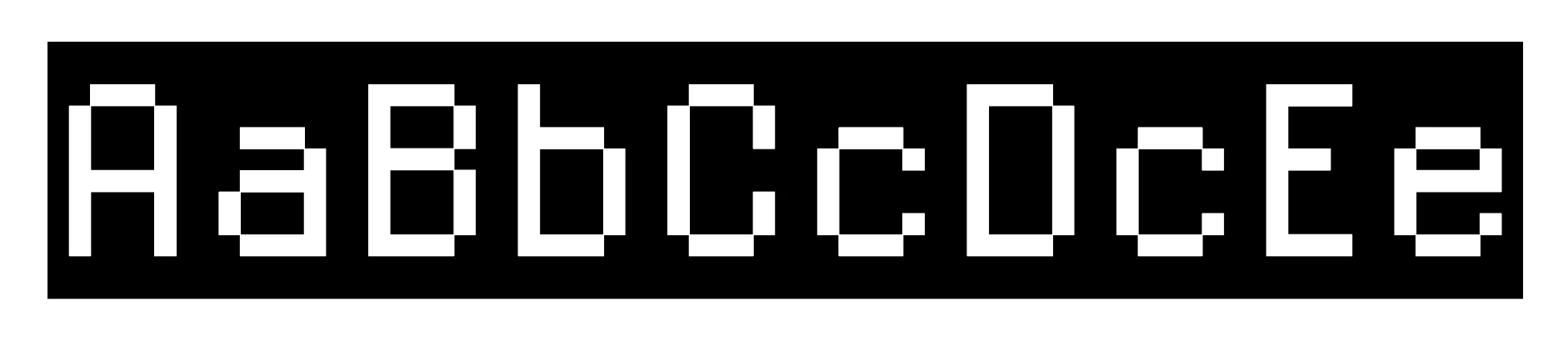
However, this is being physically printed at 12pts-ish, and I'm wondering if anyone knows of a slighly bolder version of something like from Adobe that will remain fully legible when printed. It will be printed on stock that doesn't gain much.
Also looking for one with the A style like this:
I'm trying the alternates of LoRes, but any other suggestions appreciated.
On that list, Ari-W9500, Windows, M42 Flight 721, or Pixel 12x10 seem to fit the bill